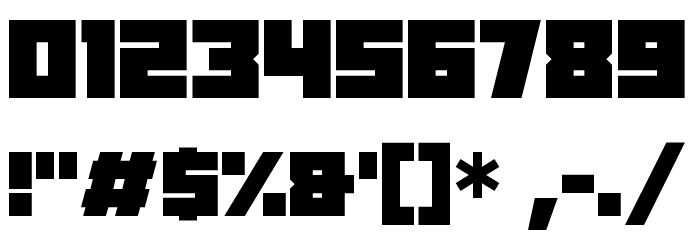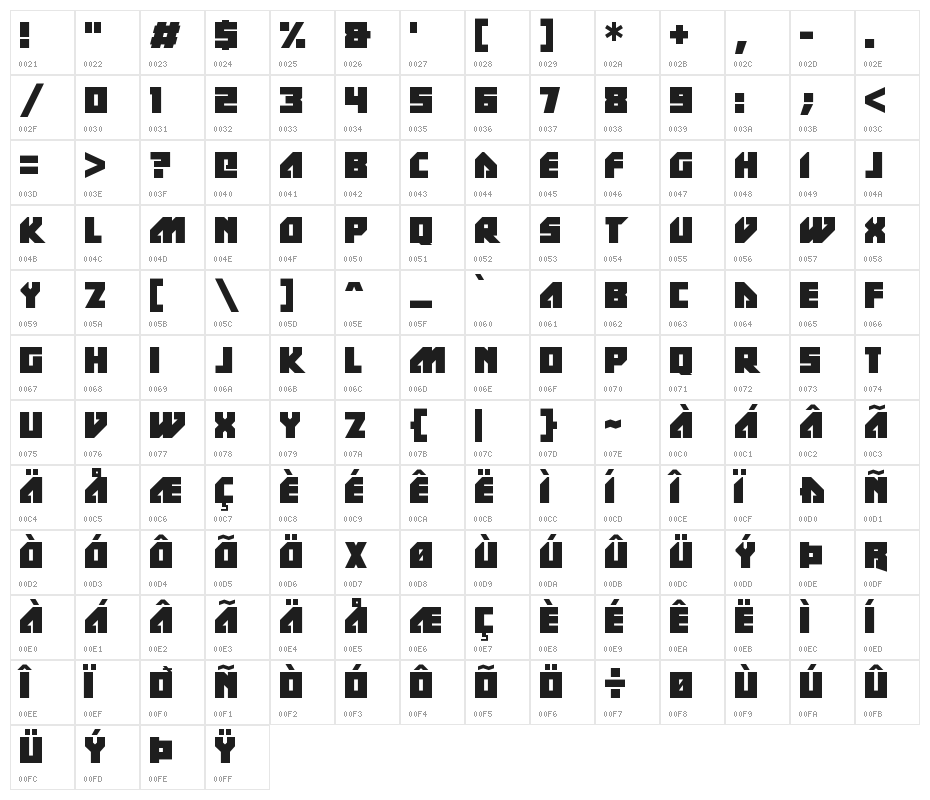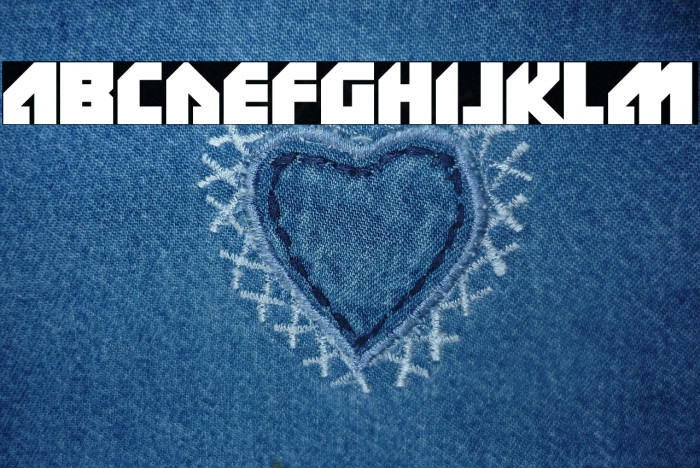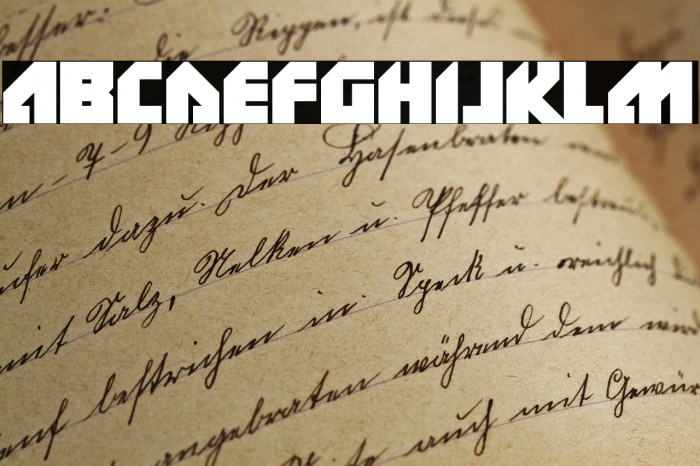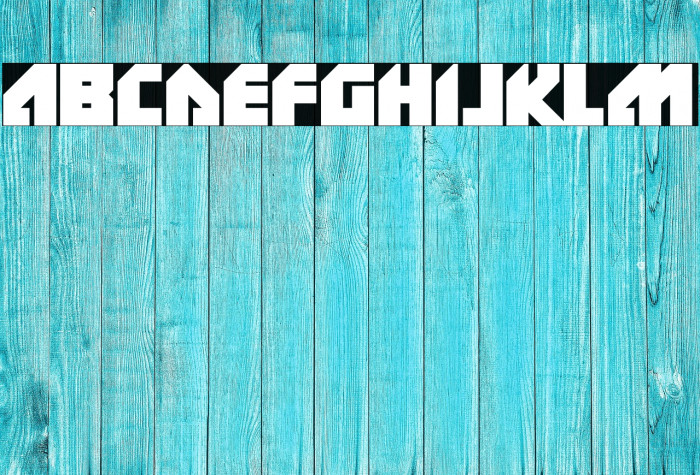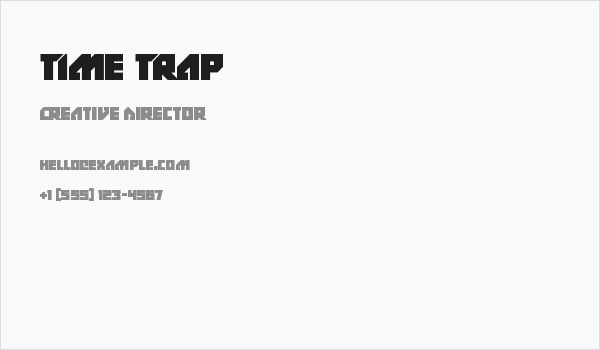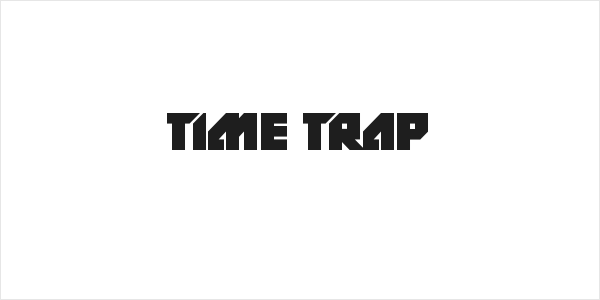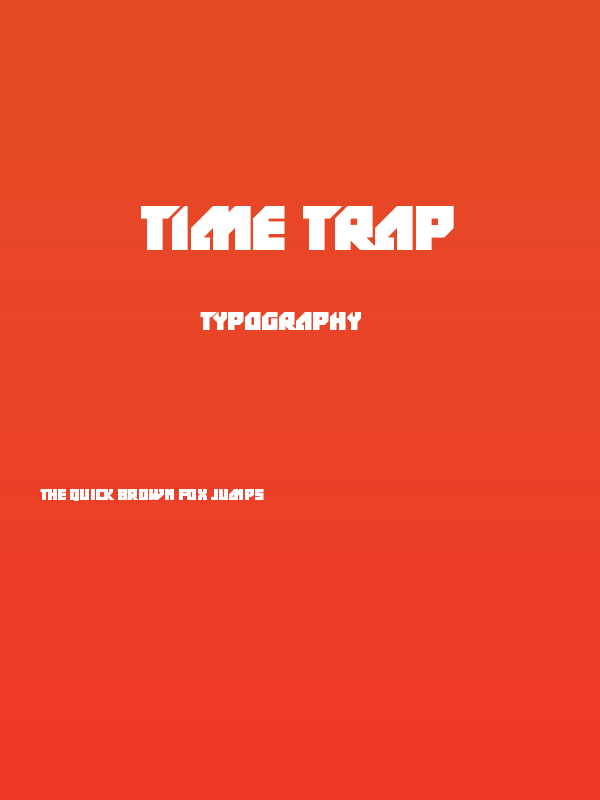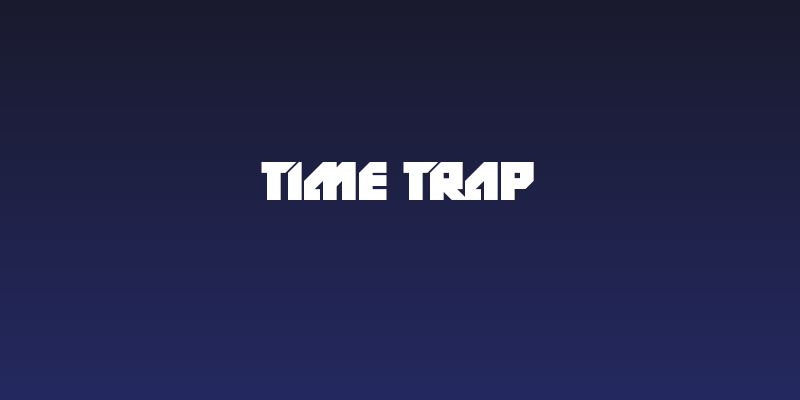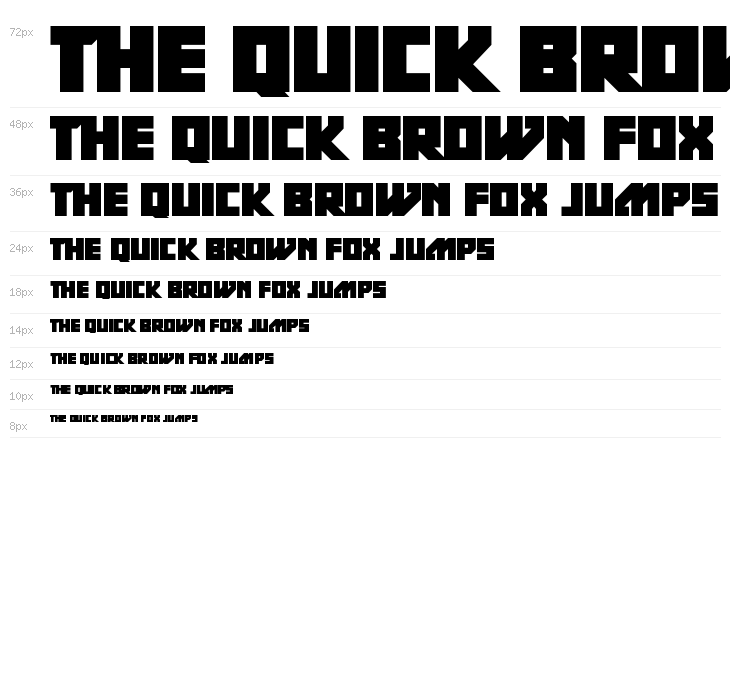
TIme TRap Font
TIme TRap Description
This font features a bold, geometric design with sharp angles and a blocky appearance. Each character is constructed with a strong emphasis on straight lines and angular cuts, giving it a futuristic and industrial feel. The uppercase and lowercase letters maintain a consistent style, with the lowercase mirroring the uppercase in form. The numerals and special characters follow the same design principles, ensuring uniformity across the typeface. The overall aesthetic is striking and modern, making it suitable for attention-grabbing designs.
| Proposed Projects | Ideal for sci-fi themed projects, video game titles, posters, and branding that requires a modern, edgy look. |